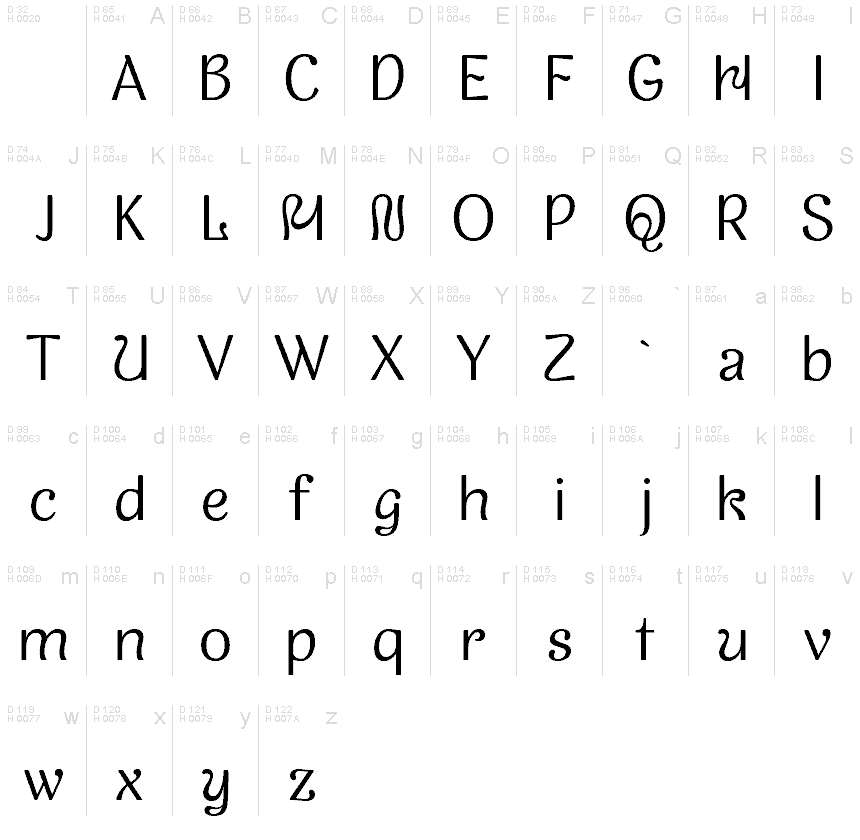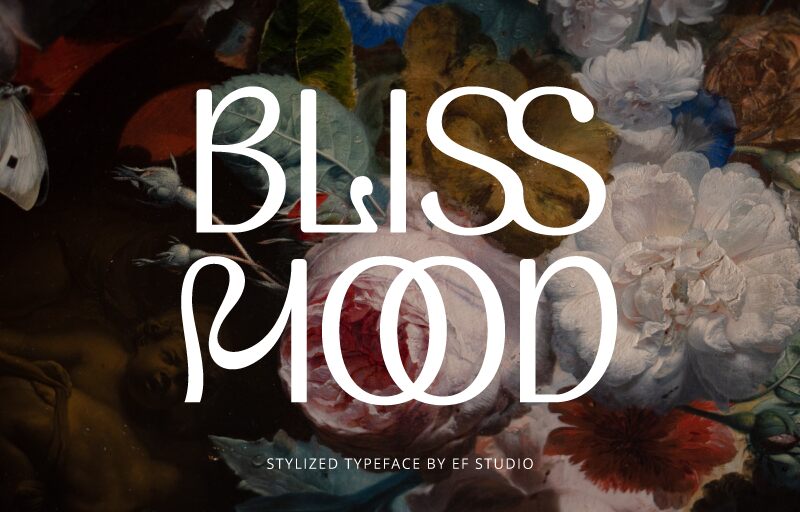
BLISS MOOD
Bliss Mood font by Ef Studio is a retro-inspired display typeface with elegant, smooth curves and art deco influence. It showcases a sophisticated aesthetic perfect for projects that require a touch of vintage elegance.
This free retro font is suitable for branding, packaging design, fashion magazines, posters, social media graphics, product labels, event invitations, logos, web design headers or footers.